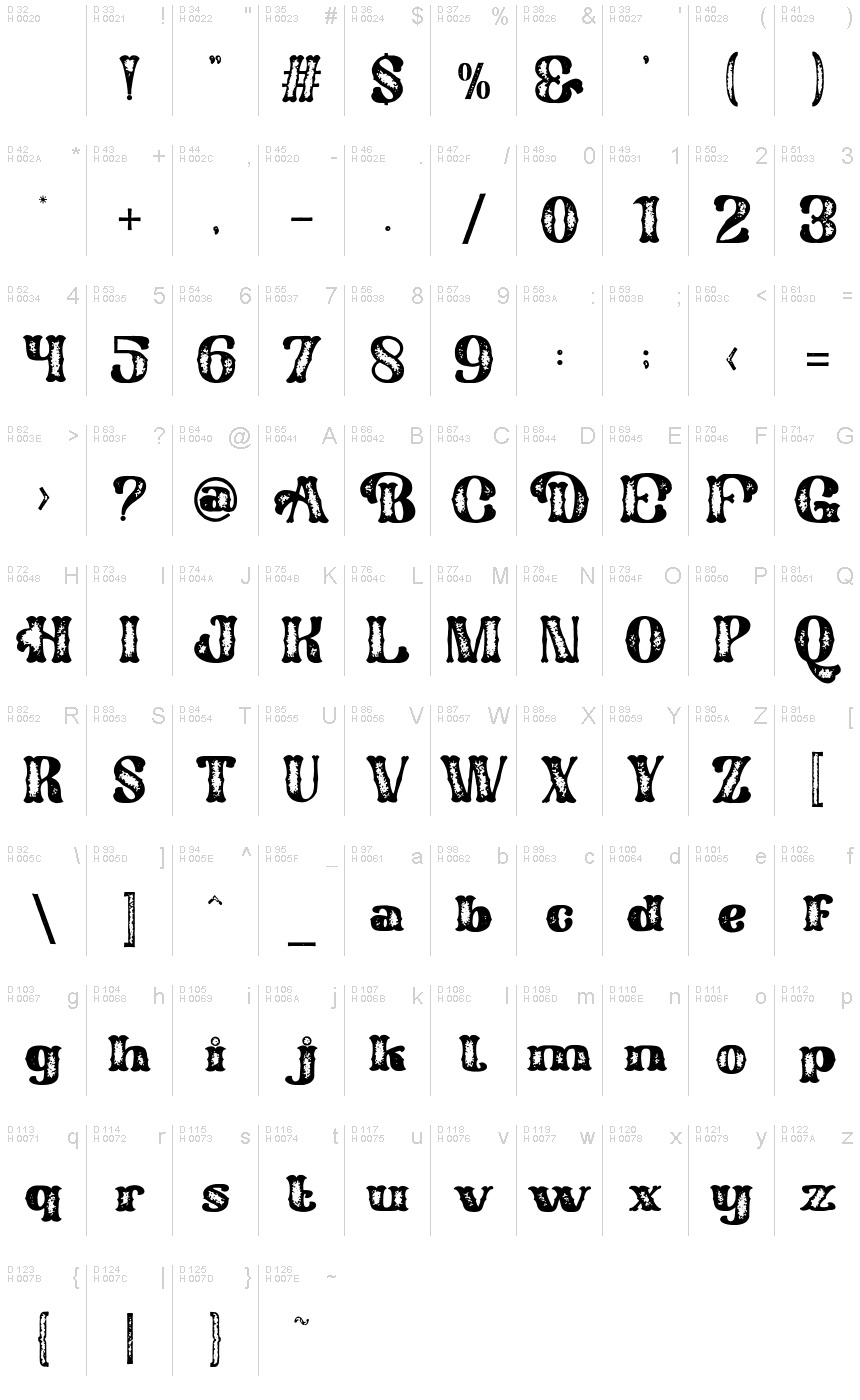
The font Western Cowboy reminds of the wildness of the American West so it combines both the old-fashioned beauty and strong decline. Developed by PutraCetol Studio, this typeface in the expanded eroded style reflects unpolished rural life at its rawest.
It is easy to see that imperfect distressing is a major feature setting apart one character from another in the Western Cowboy font but also creating an arresting visual experience that draws our attention. Its large strokes with lots of texture give it an authentic look which speaks volumes about being adventurous and self-reliant while also making any design more interesting – therefore suitable for wide range applications.